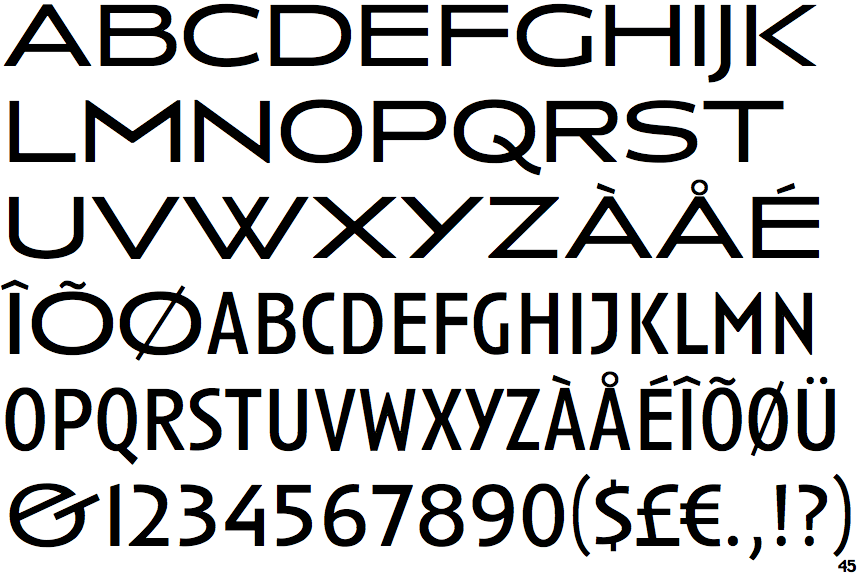
Anisette
A five-weight series based on Banjo Initials, a series of Art Deco capitals originally released by Deberny & Peignot in 1930.
Designer: Jean François Porchez Year: 1996 Publishers: Typofonderie and Font Bureau Among the winners of bukva:raz!, the ATypI type design competition in 2001. No lower-case characters. |